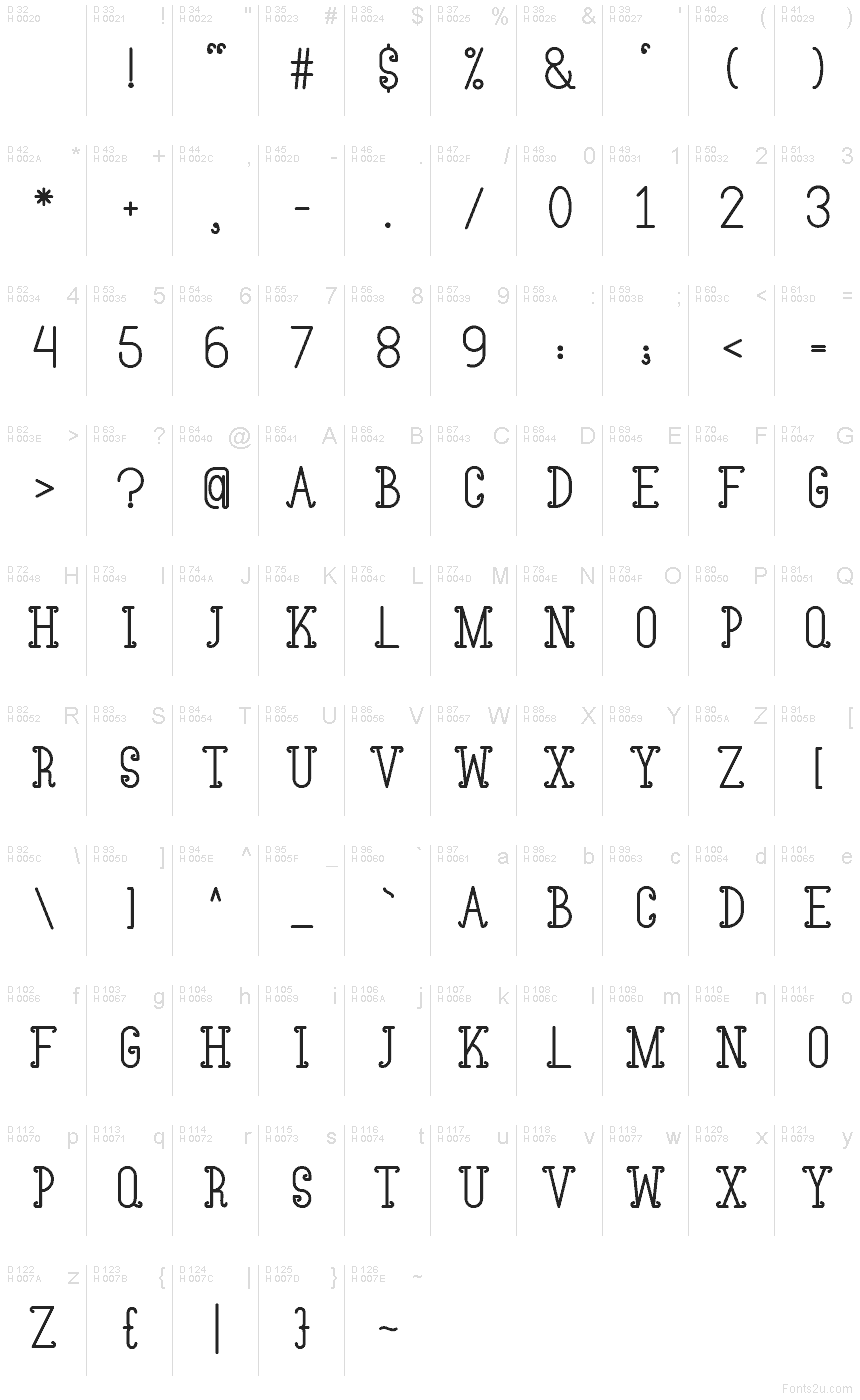
Holly Skates
Holly Skates font by Pian45 Studio is a free curly display font that rolls across the page with playful confidence. Tall, narrow letters are dressed with looping curls and rounded “wheels” along the baseline, giving every word a bouncy, parade-banner energy. The strokes feel inky and hand-drawn, but the spacing stays clean enough that headlines stay legible even when the style gets extra decorative.
Using Holly Skates, you can dial up the fun in retro party posters, candy or toy packaging, kids’ book covers, playful logos, social media graphics, and holiday cards. This free font shines when set large, where the curls and dots can really show off; pair it with a simple, neutral sans-serif for body text so the ornate letterforms stay in the spotlight.